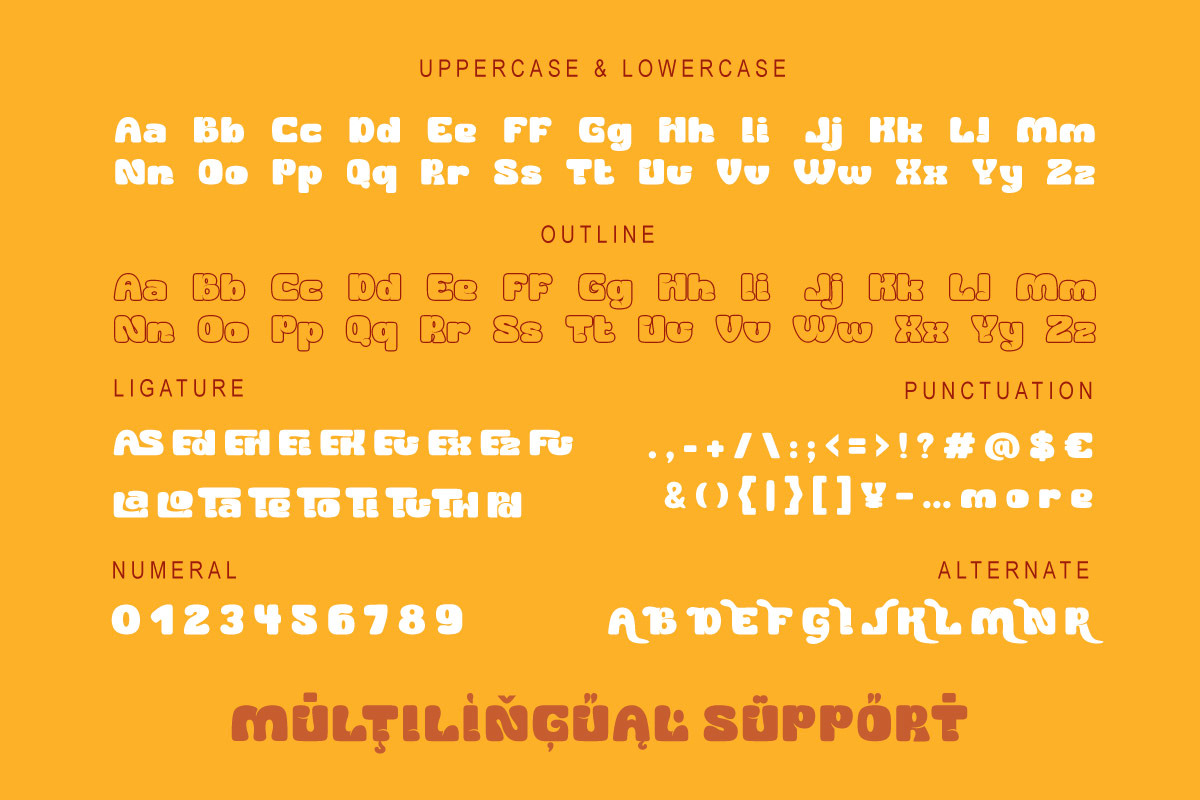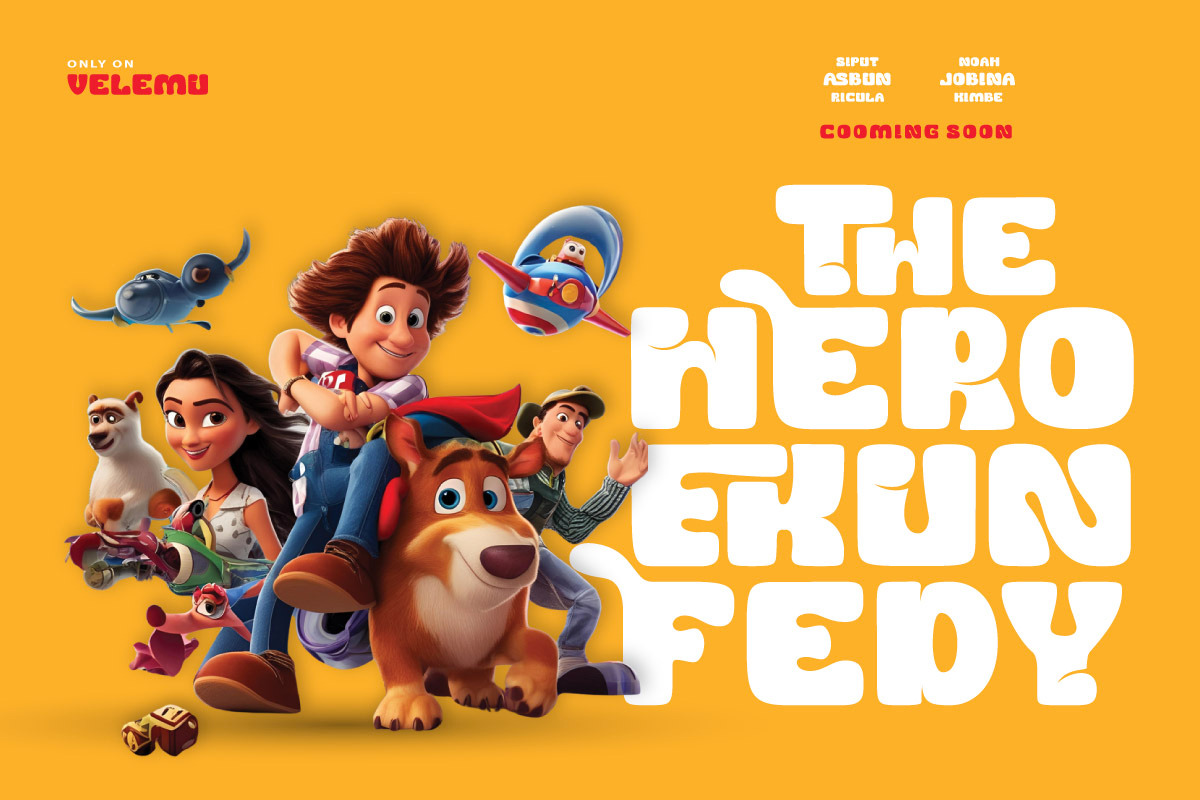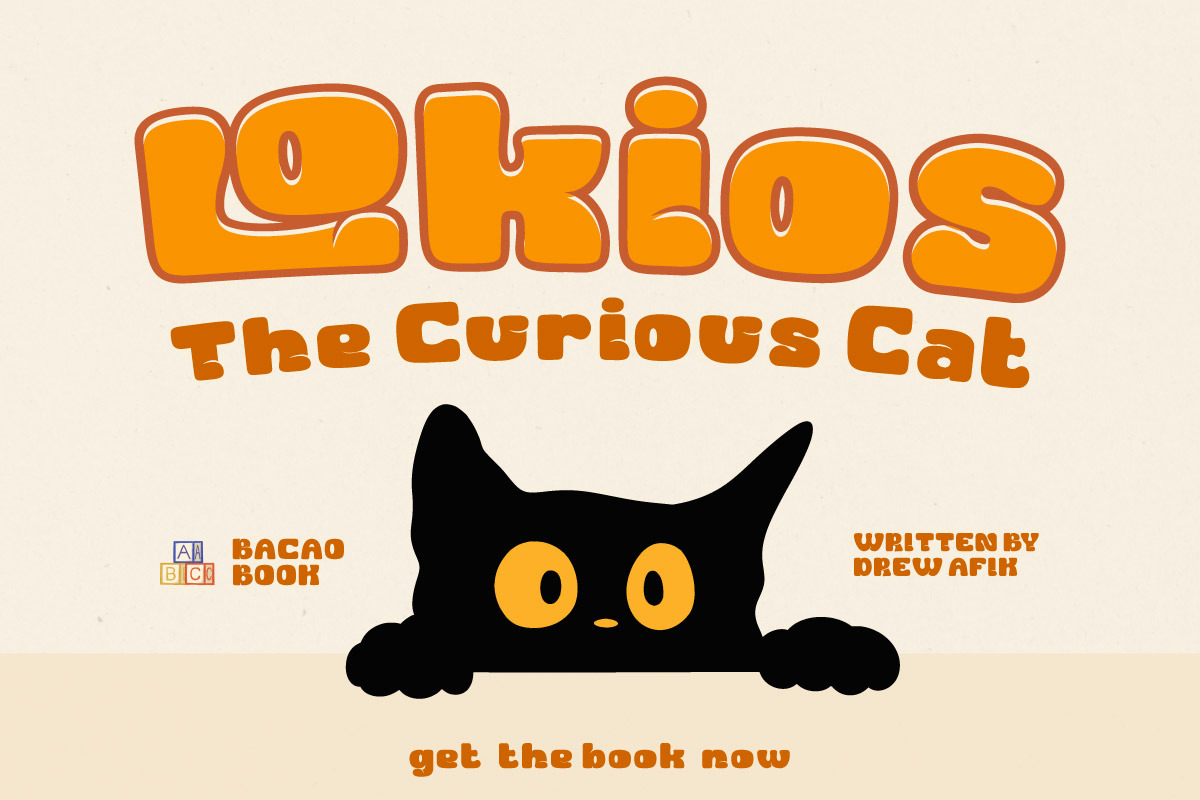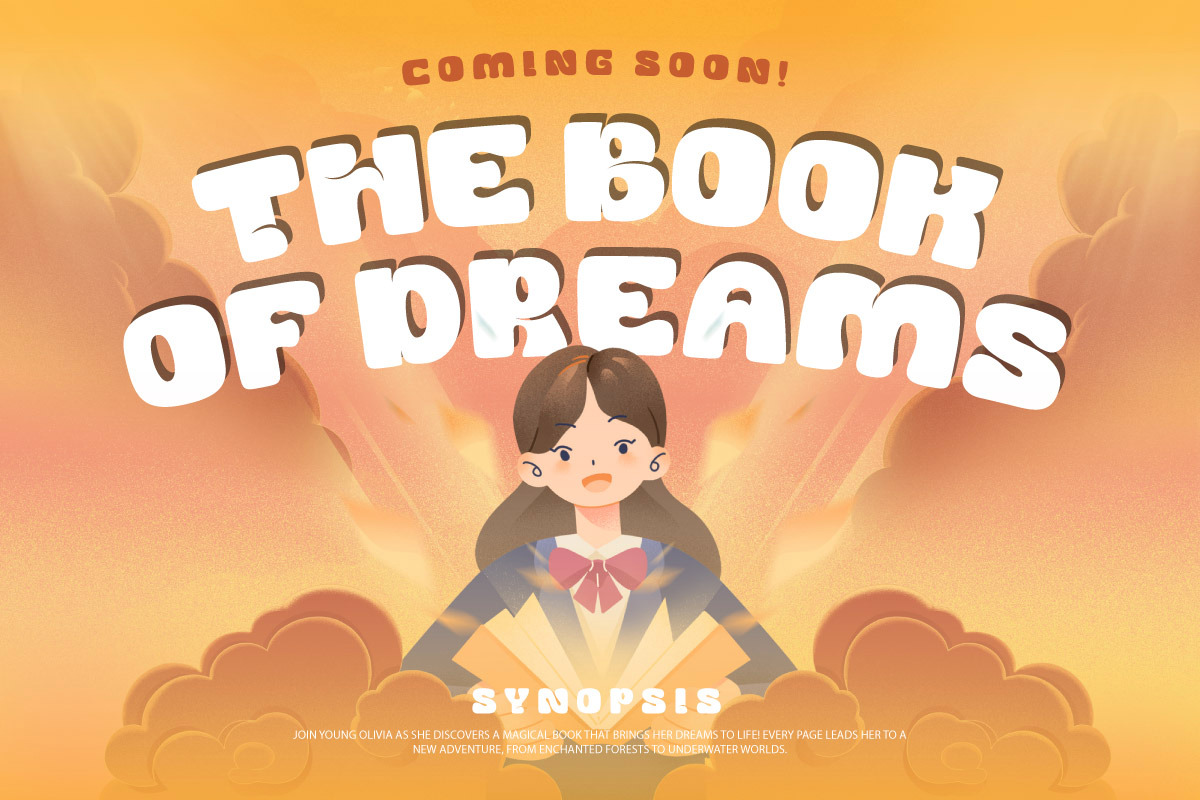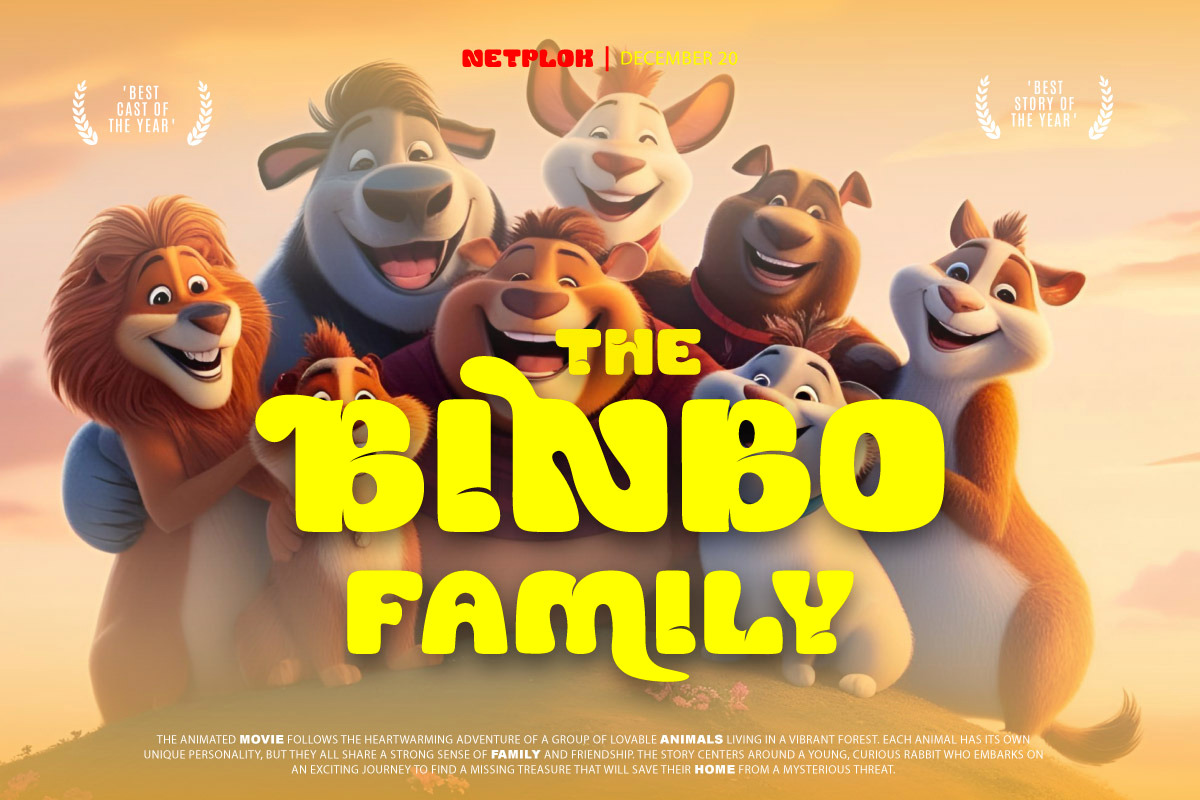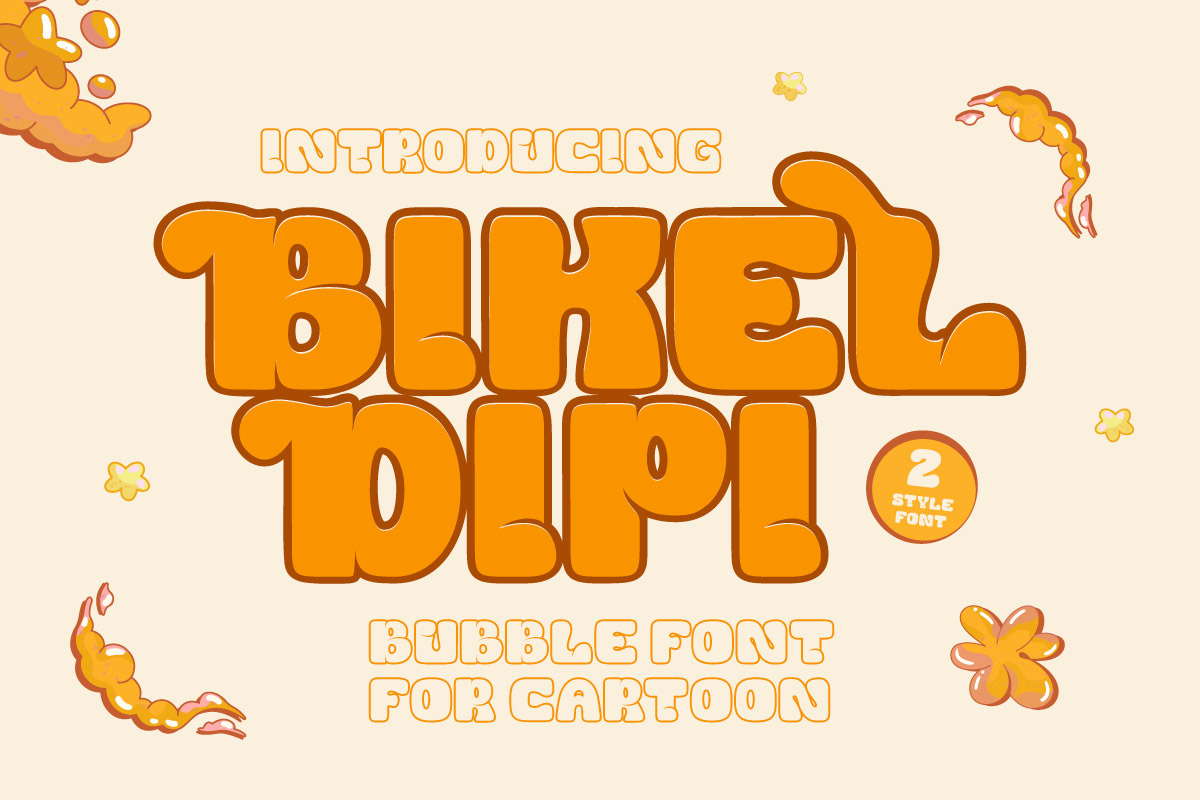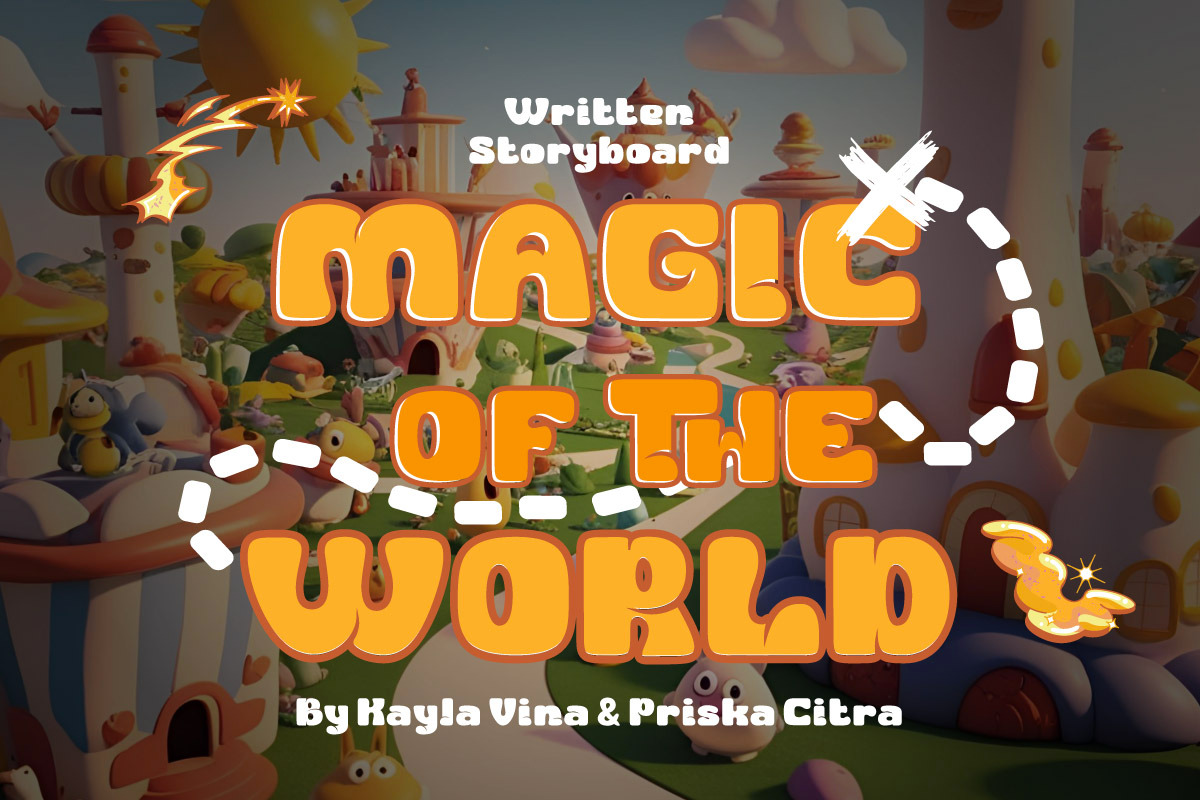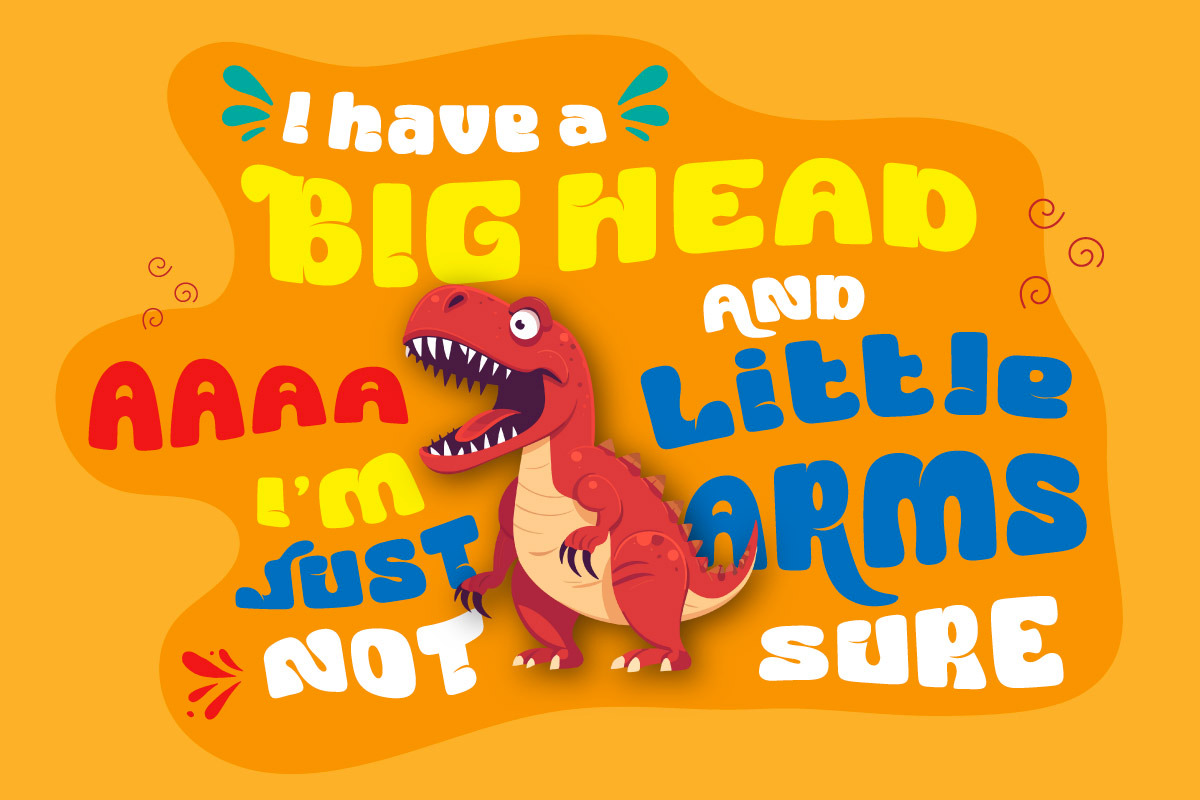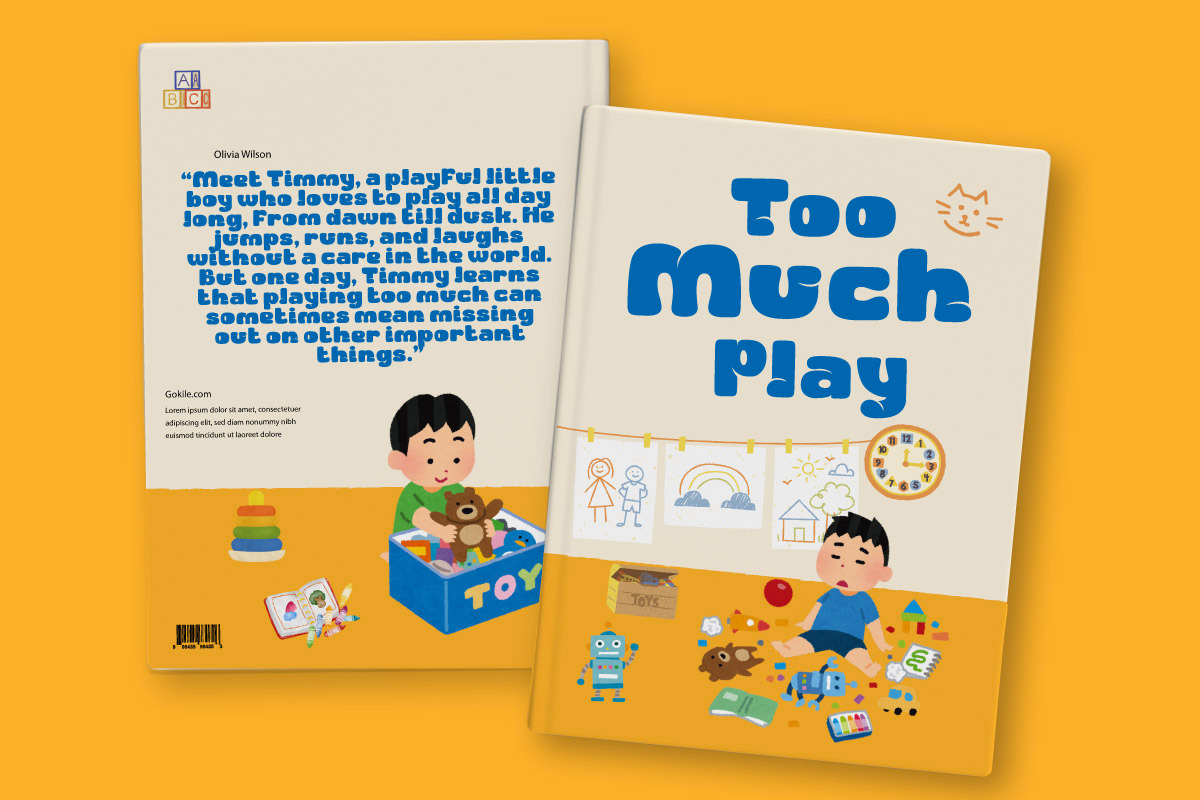
Bikel Dipi - Display Bubble Font
Bikel Dipi is a joyful and bouncy bubble font designed to bring smiles and playful energy to your creative projects. With its chunky, rounded letters and cartoonish charm, this font is perfect for children's content, playful branding, birthday invitations, comic books, and anything that needs a burst of cheerful personality.
Each letter in Bikel Dipi feels like it's been inflated with fun — bold, bubbly, and full of life. Its soft curves and friendly shapes make it an ideal choice for designs that aim to be approachable and full of positive vibes. Whether you’re working on a toy packaging, kids’ YouTube channel branding, or educational materials, this font delivers that cartoon magic that instantly connects with audiences.
Let Bikel Dipi add a pop of fun and friendliness to your next design. It’s not just a font — it’s a bubble of happiness ready to explode on your canvas!